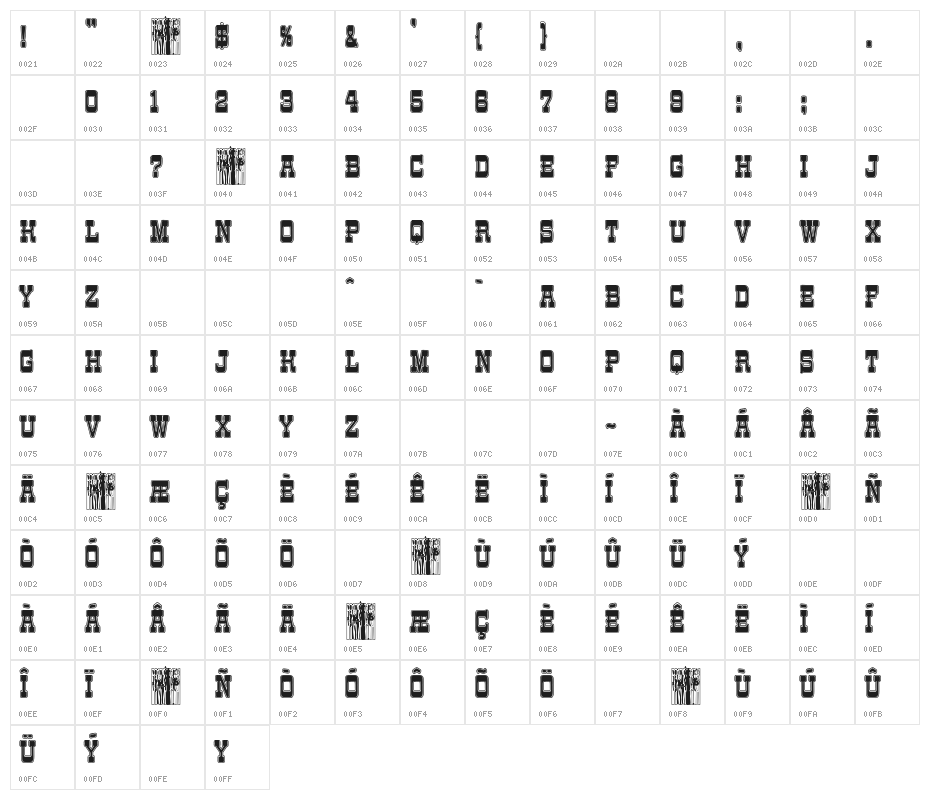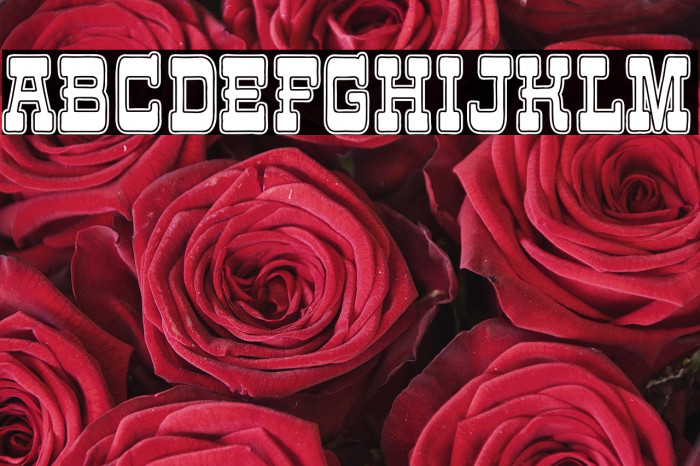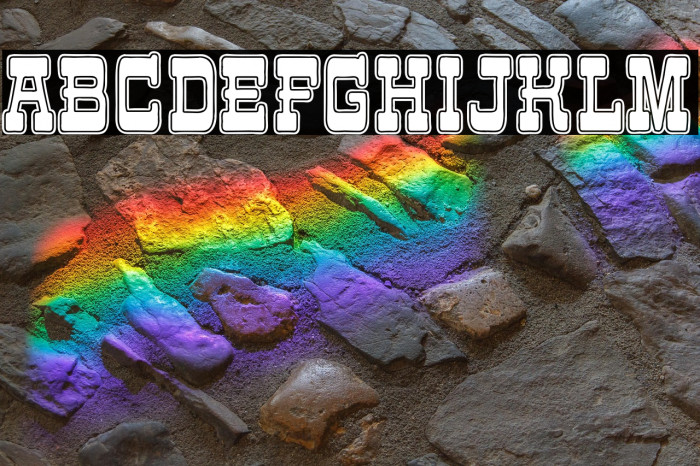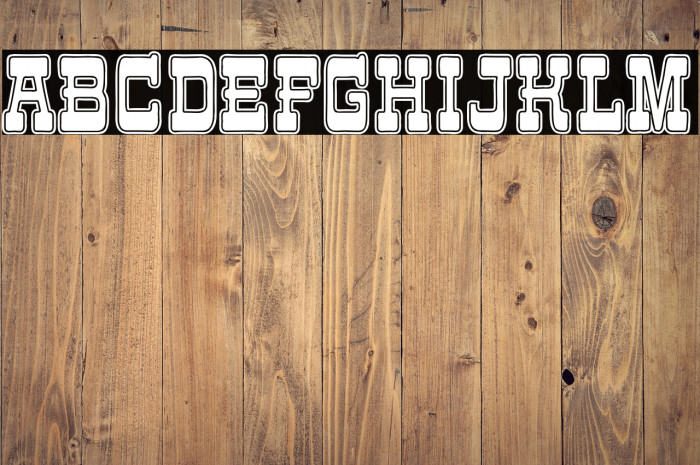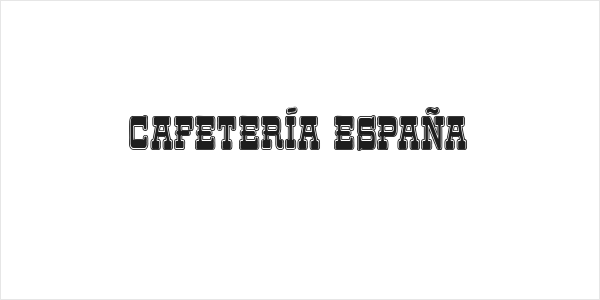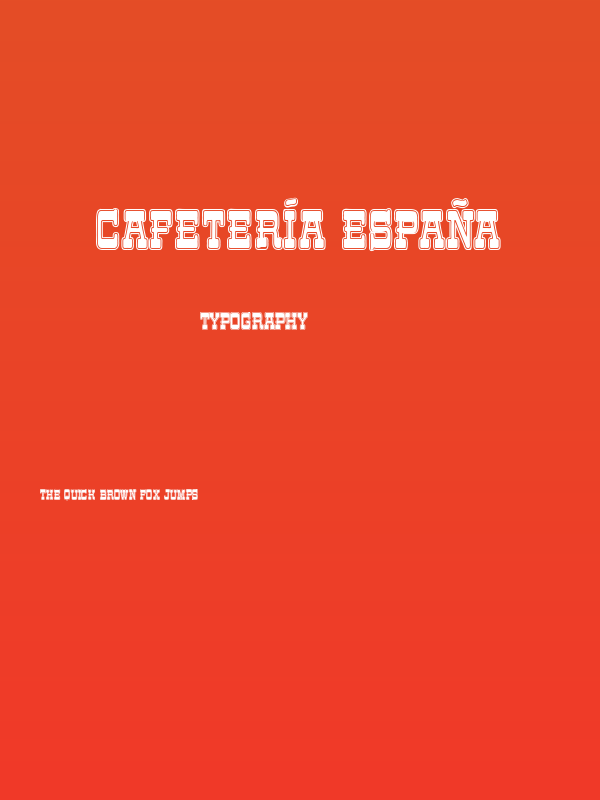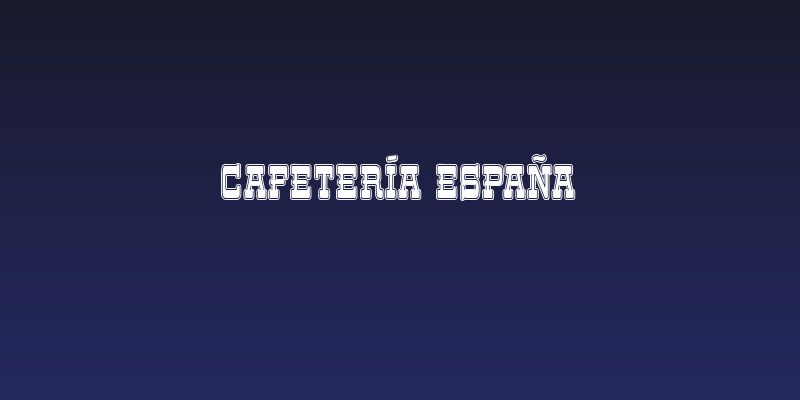
Cafetería España Font
Cafetería España Description
This font features a bold, decorative style with a strong outline that gives each character a striking appearance. The letters are uppercase and have a blocky, geometric form, which is accentuated by the thick borders. This design creates a sense of depth and dimension, making it ideal for eye-catching displays. The numerals and special characters follow the same bold and outlined aesthetic, ensuring consistency across all glyphs. The font's unique style is reminiscent of vintage signage, offering a nostalgic yet modern appeal.